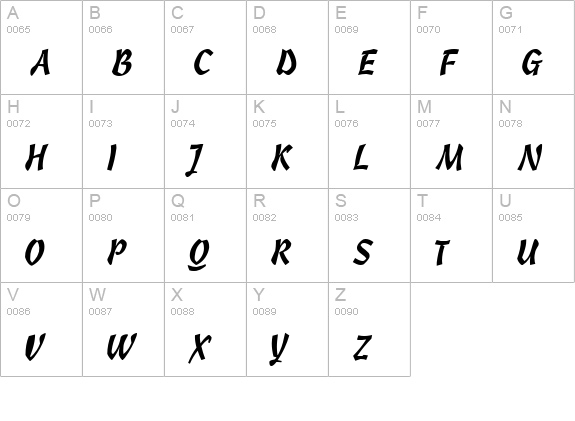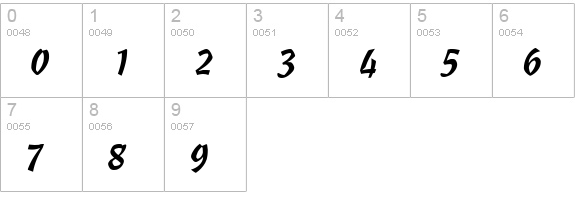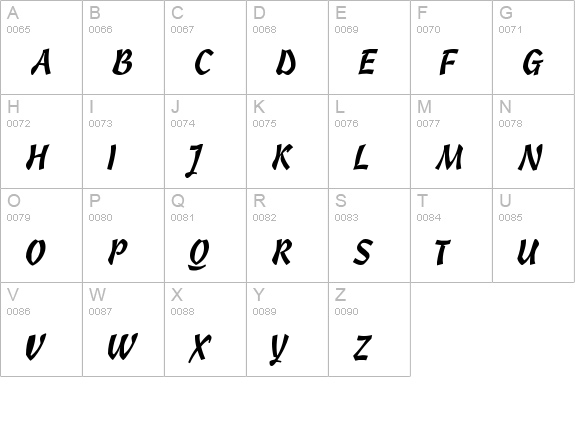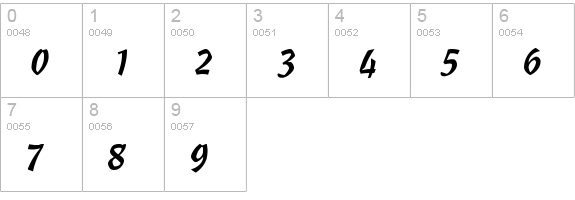
QTCascadetype Regular Font Details
QTCascadetype Regular is the standard, neutral variant in the QTCascadetype typeface family \xE2\x80\x94 well suited to general body text, paragraphs, and standard typographic work.
QTCascadetype Regular is a versatile and stylish font that is perfect for a wide range of design projects. With its clean lines and elegant curves, this font adds a touch of sophistication to any layout. Whether you're creating a logo, designing a website, or working on a print project, QTCascadetype Regular is sure to make a lasting impression. This font features a balanced combination of modern and classic elements, making it suitable for both contemporary and timeless designs. Its medium weight ensures readability in various sizes and contexts, while its subtle details add character and charm. One of the best things about QTCascadetype Regular is that it is free. Yes, you read that right! This font is freely available to download at FontsMarket.com. This means that you can enjoy the benefits of this beautiful typeface without breaking the bank. Whether you're a professional designer or a hobbyist, QTCascadetype Regular is a must-have in your font collection. Its versatility, elegance, and affordability make it a valuable asset for any project. So why wait? Head over to FontsMarket.com and download QTCascadetype Regular today to elevate your designs to new heights.